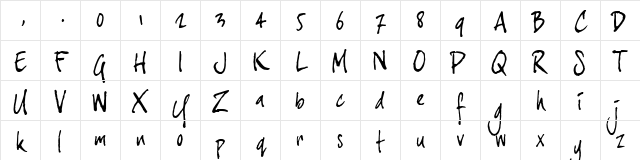
Complete joeHand 3 Regular glyph index. Displaying only characters natively supported by joeHand 3 Regular font.
joeHand 3 flows with the natural rhythm of handwritten lettering, making it ideal for designs that call for warmth and personal expression.
Font Pairing: Combine joeHand 3 with a simple geometric sans for maximum contrast - the tension between flowing curves and clean structure is a classic typographic pairing.
Pro Tip: Use joeHand 3 for short runs of text - names, titles, or taglines. Extended body copy in script faces tires the eye quickly.